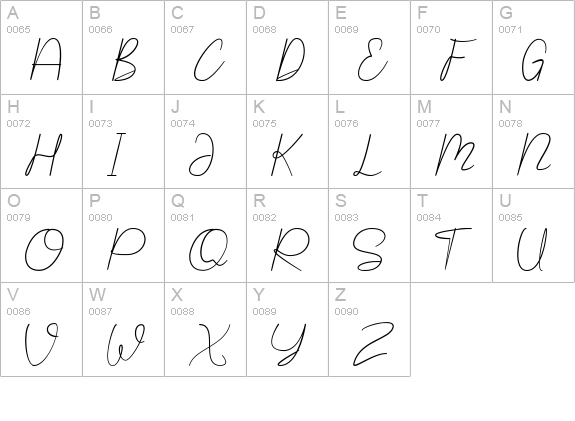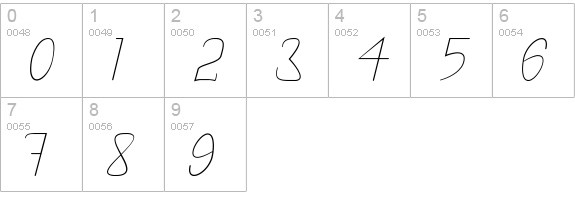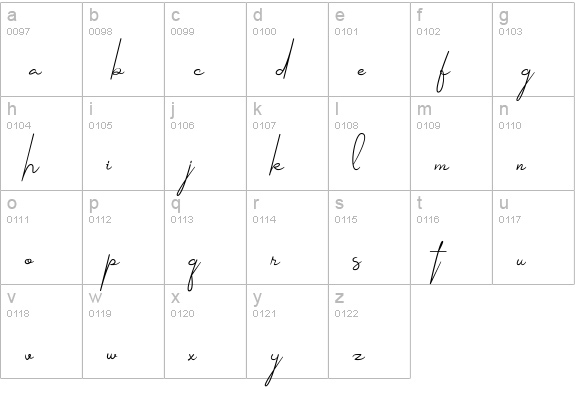
Shellomita Font Details
Shellomita is a free for personal use font in the Script > Handwritten category, designed by bluestudio. It has been downloaded 184 times and is available for Windows, Mac and Linux.
Shellomita font is a beautiful and elegant typeface that exudes a sense of sophistication and charm. With its delicate curves and graceful lines, this font is perfect for adding a touch of elegance to any design project. Whether you're creating wedding invitations, branding materials, or social media graphics, Shellomita font will elevate your work to the next level.